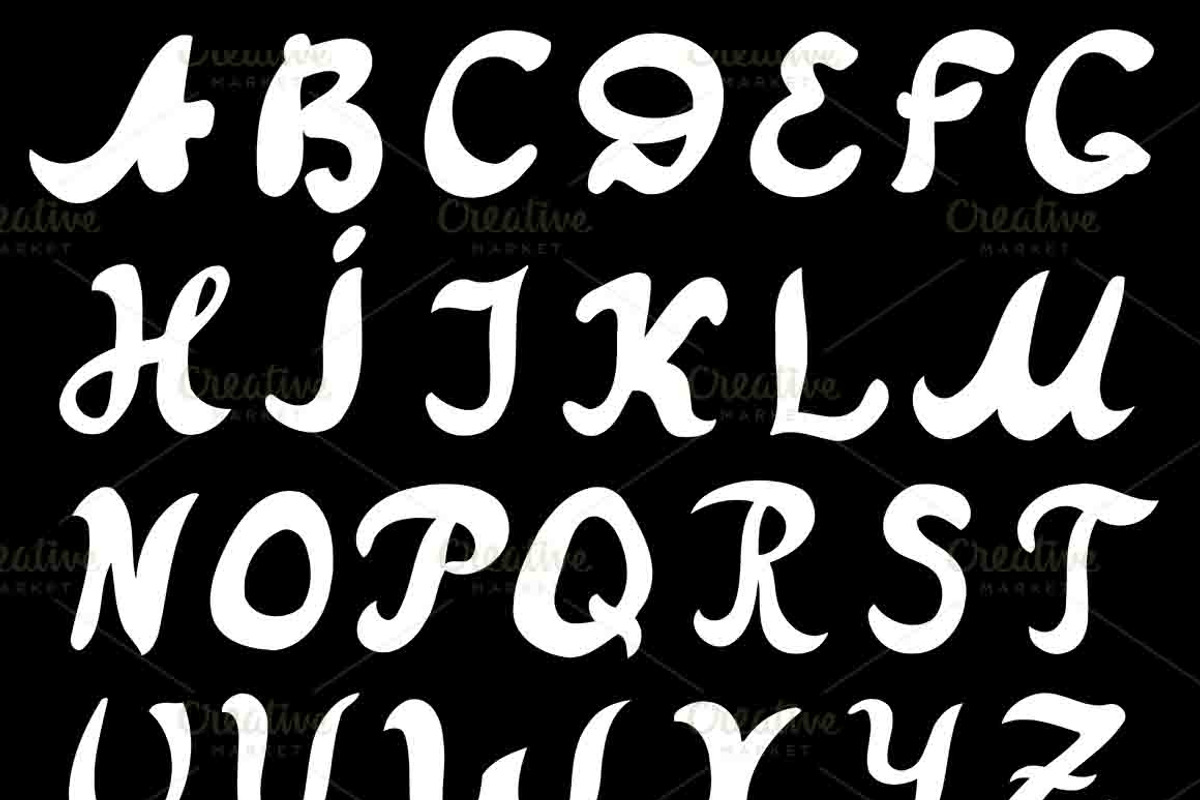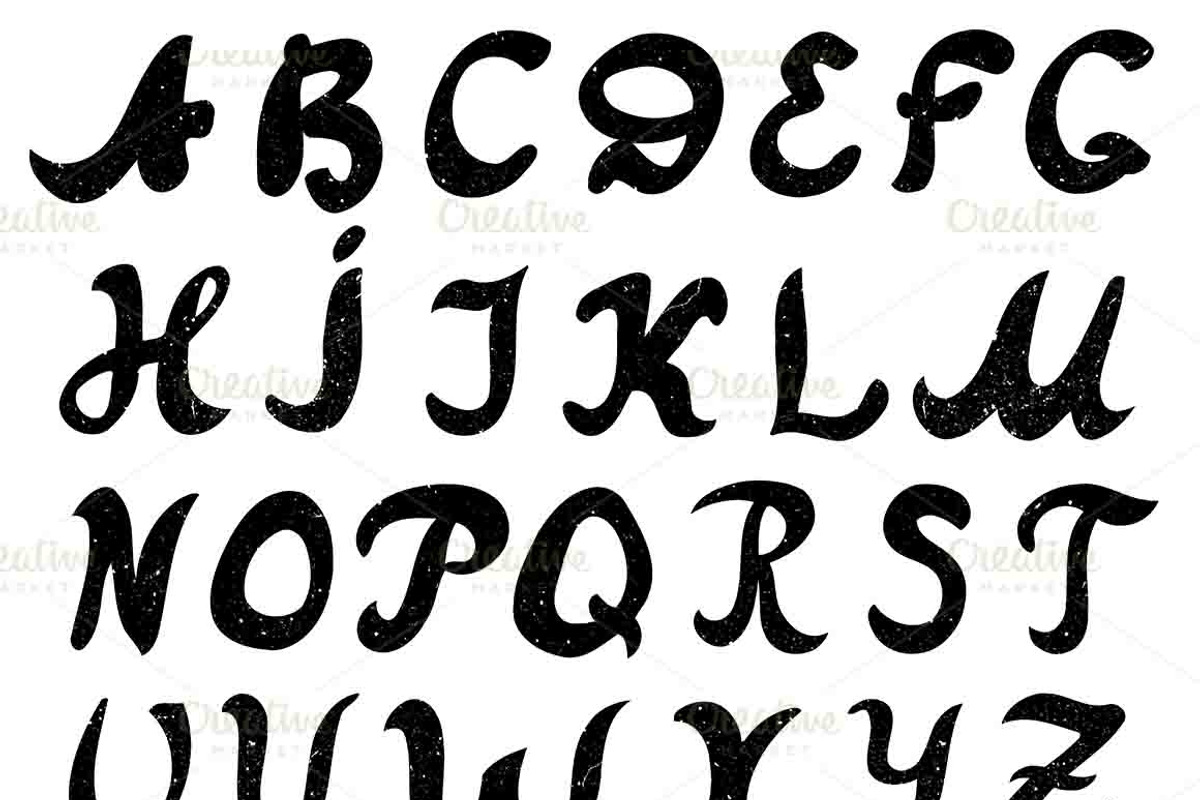
Font AtanasBrush
Font AtanasBrush by IllustrationArtShop is a font selected for branding, posters, packaging, typography.
Why Font AtanasBrush is worth a look
Font AtanasBrush by IllustrationArtShop fits naturally into Branding, posters, packaging, typography.